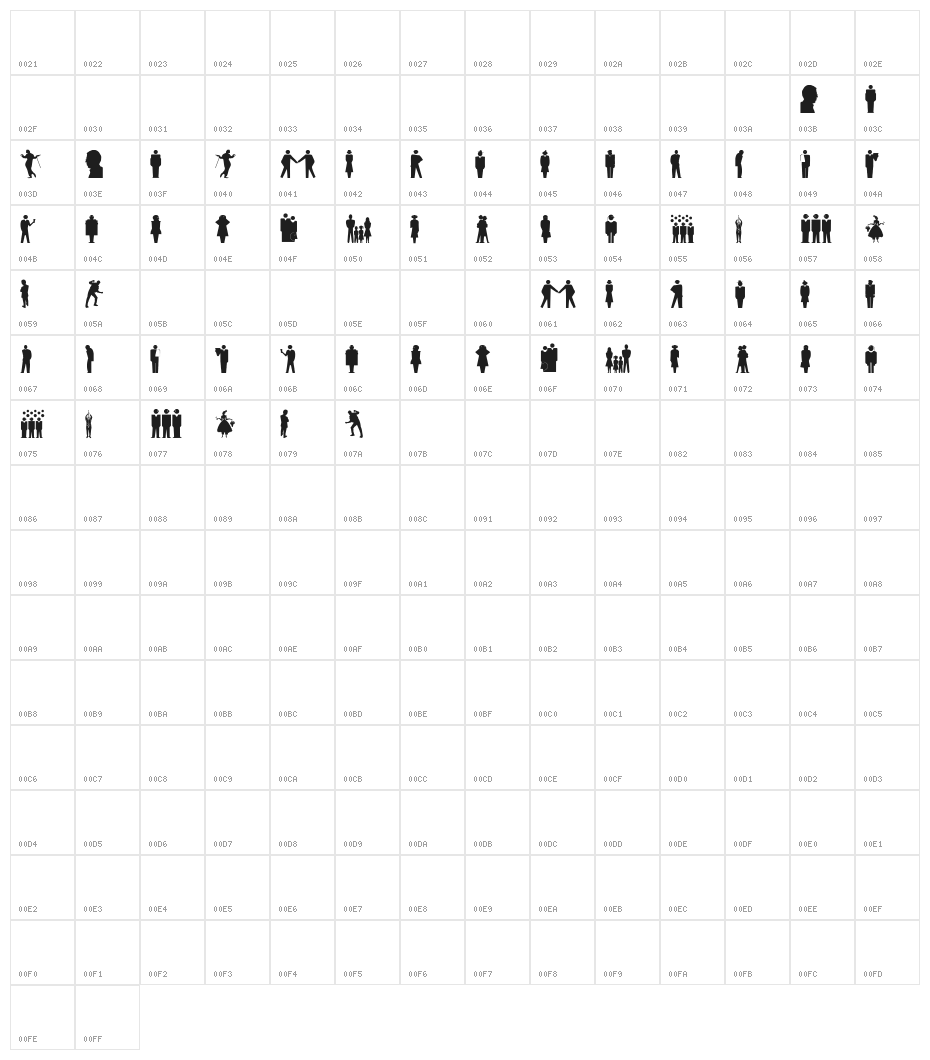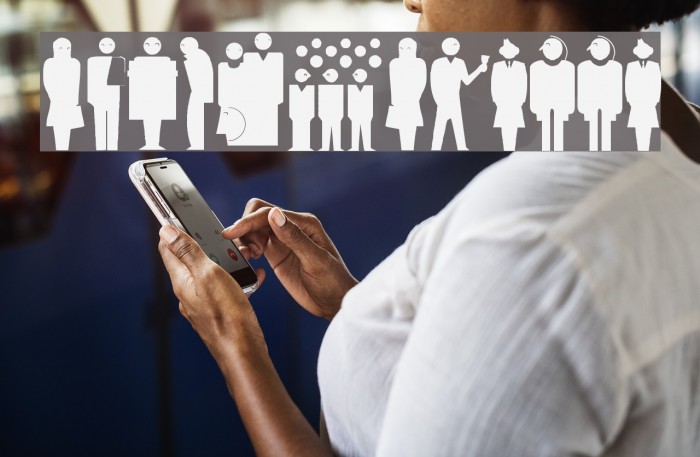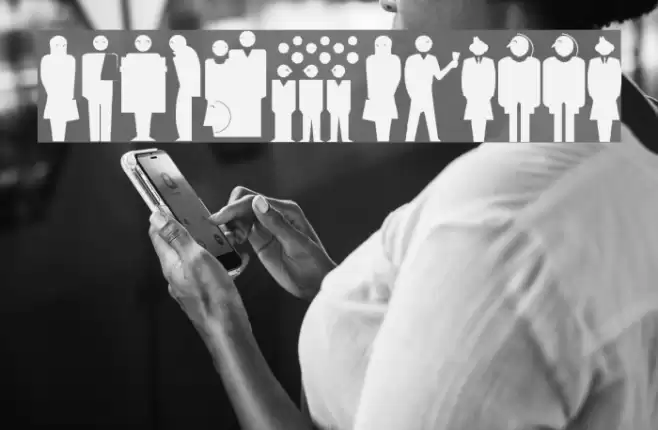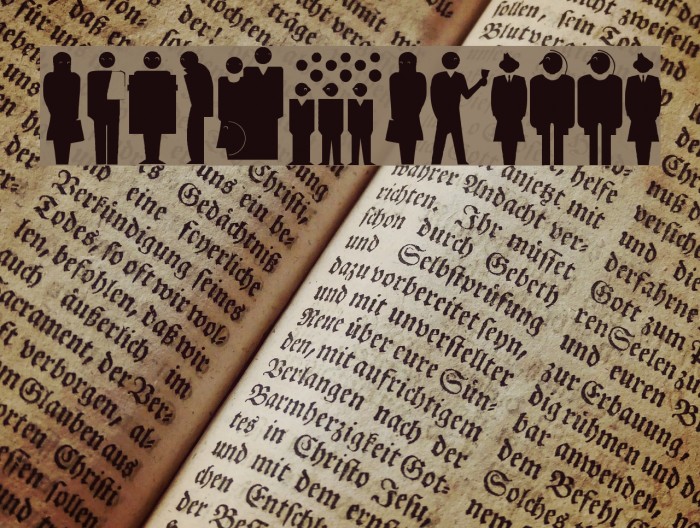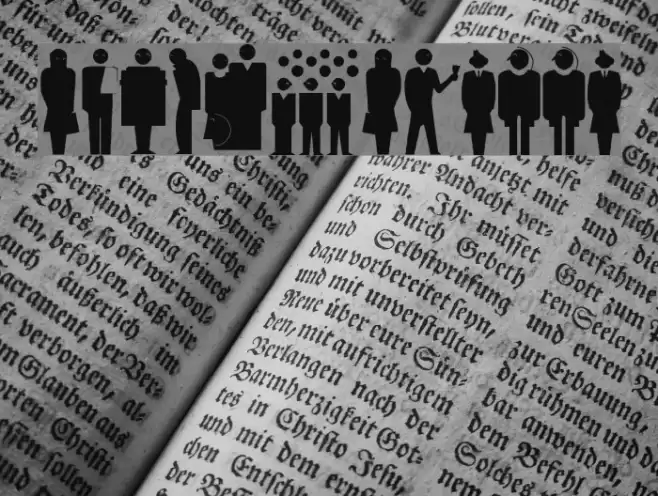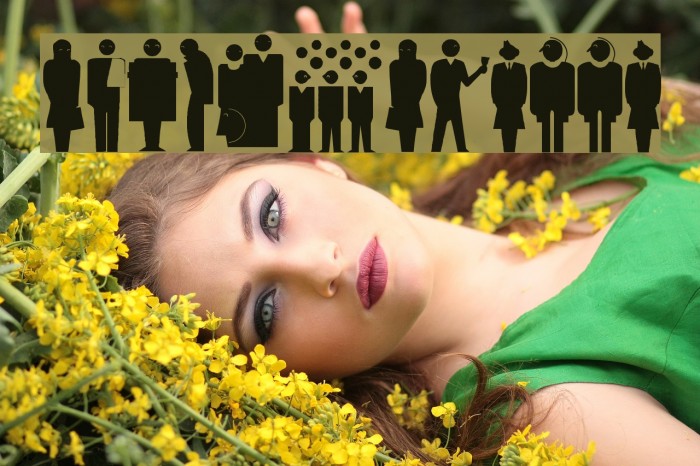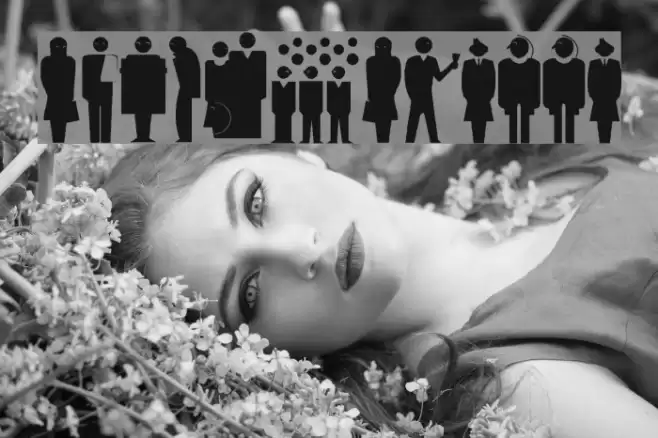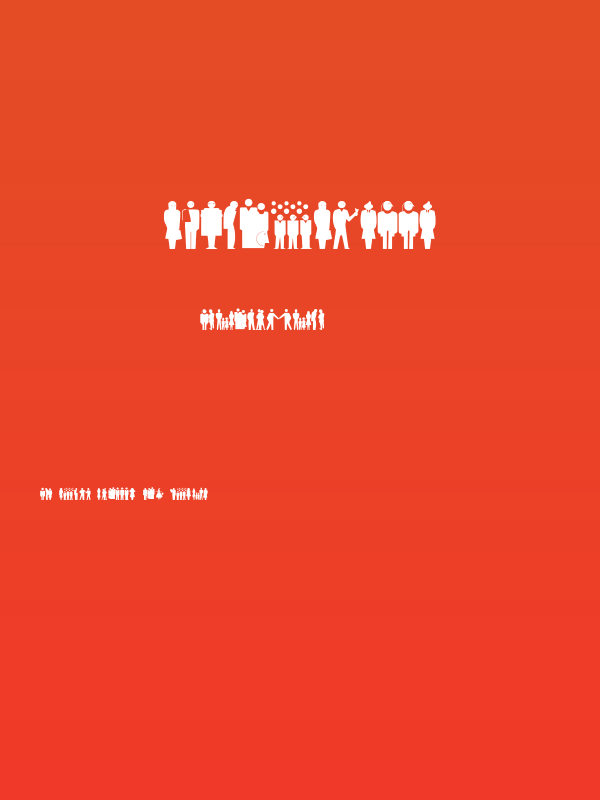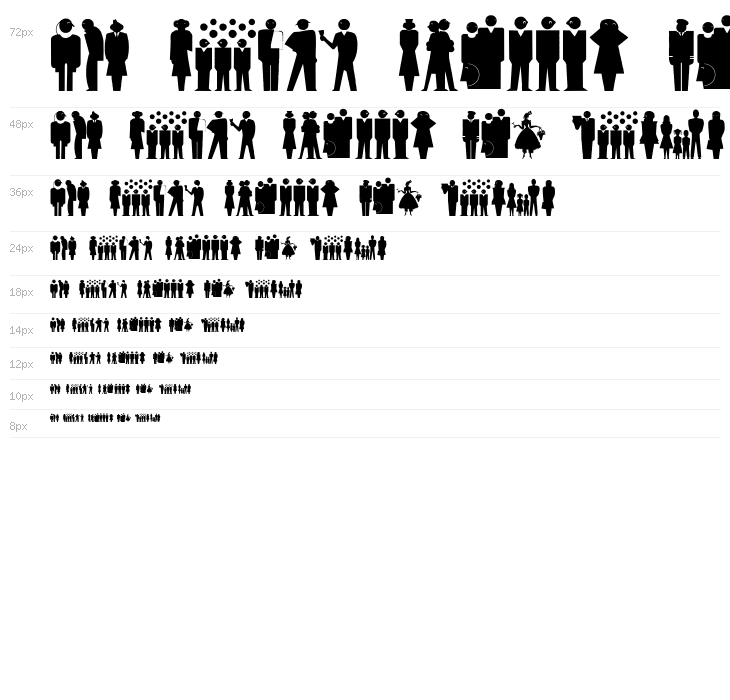
SilhousKette Font
SilhousKette Description
A playful and decorative font composed entirely of human and character silhouettes, each letter and symbol represented by a unique figure or group of figures in various poses and attire. The style is highly illustrative with strong, solid black shapes and no internal detail, evoking a pictogram or cut-out effect.
Overall StyleDecorative, Playful, Whimsical
Use CaseHeadlines, Logos, Posters, Themed Graphics
Proposed ProjectsEvent posters, children's books, creative branding, party invitations, themed signage.